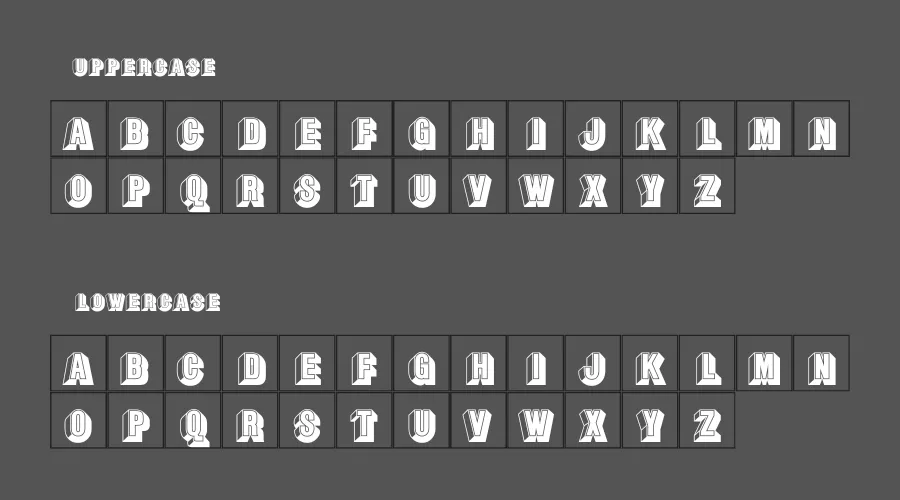
About Buxon Becker Font
Buxon Becker Font is designed by (URW)++ Design and Development it is a display typeface. It is a well-known typeface that has gained great popularity in the design community. Its free version is also can be found here.
This typeface has grown in recognition since it was first used in public. Around 67 distinct languages are supported globally. You can easily compare this font with the angry bitch font.
Its line spacing and slightly bold format make it suitable for use in a variety of long paragraphs. It is only necessary for you to download it and use it in your projects. For many designs, the generator tool on it performs well. You'll observe its flawless and impressive results.